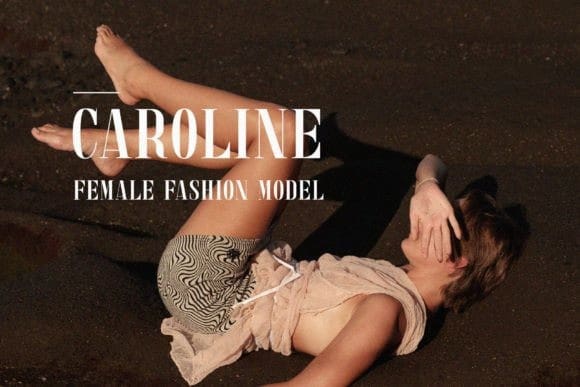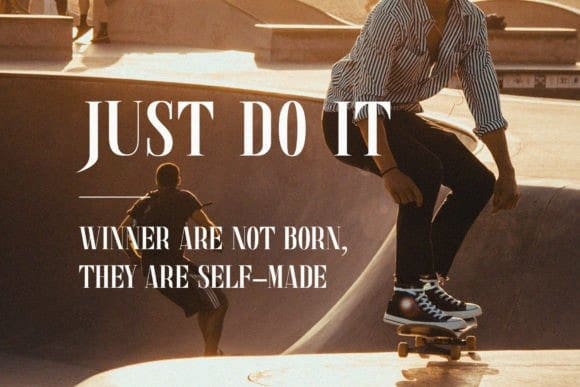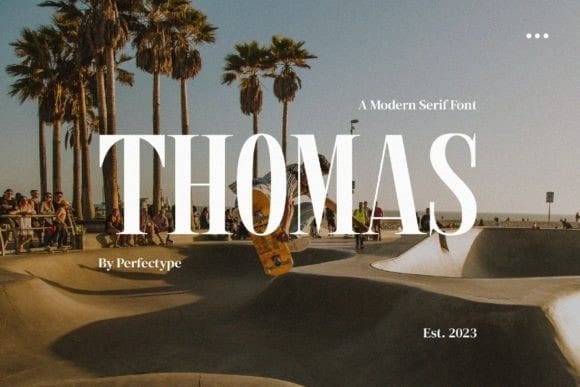
Thomas Font
Thomas Font is an elegant and modern serif font. This minimalist and clean vibe can easily be applied to your favorite designs such as book covers, magazines, social media posts, invitations, and so much more!